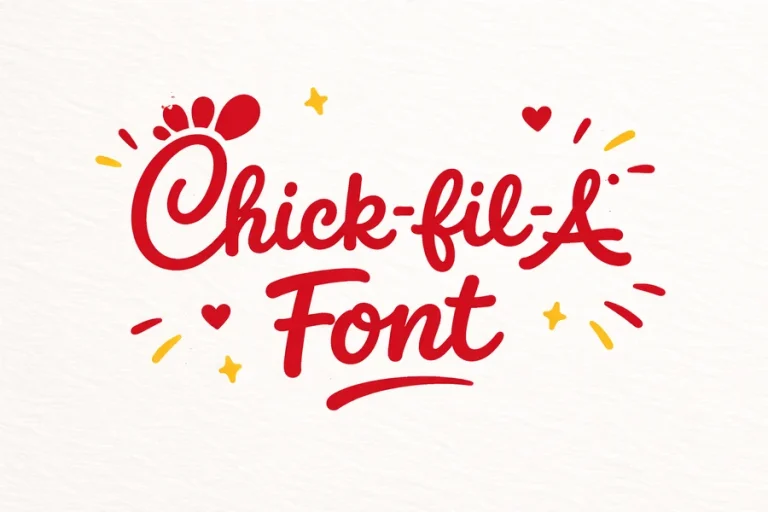
Chick Fil A Font – Style, History, and Brand Impact
Chick Fil A Font
The Chick Fil A font is one of the most recognizable logo styles in the fast-food industry. Its scribbled appearance catches the eyes of everyone at a glance, reminding them of the well-known chicken sandwich brand, and this can be considered an advantage of the company in the saturated market. Typography is a strong branding tool, and a unique script design employed by Chick-fil-A appears friendly, easy to approach, and to remember.
The peculiar font of the logo of the brand does not escape the attention of many individuals, particularly the innovative application of the letter C that looks like a head of a chicken. This is a smart design aspect which supports the concern of the restaurant about chicken and makes the logo easy to recall and attractive.
In this article, we’ll take a closer look at the style behind the Chick Fil A font, how it developed over time, why it works so well for branding, and what similar fonts designers can use if they want a comparable handwritten feel.
The Origin of the Chick Fil A Font
Chick-fil-A brand is an American company, which was established in 1967 by S. Truett Cathy. Since the inception of the firm, the firm sought to develop a warm and receptive image. The brand did not go to an ordinary corporate typeface but rather applied handwritten logo, which portrayed character and coziness.
Unlike many logos that rely on commercially available fonts, the Chick Fil A font was custom designed. Original designs were based on the handwriting of Truett Cathy so the logo had a personal aspect. This strategy contributed to making the brand closer and more real among the consumers.
The logo has been perfected and modernized over time but the main handwritten style has stayed the same. This has enabled the brand to retain a solid recognition over the decades yet be in line with the current design trends.
A distinctive handwritten style of the font also indicates that the company focuses on hospitality and friendliness as the major elements of the Chick-fil-A brand.
Key Characteristics of the Chick Fil A Font
The design of the Chick Fil A font includes several distinct features that make it stand out from typical restaurant logos.
To begin with, the font belongs to the style of a handwritten script. This makes the logo look relaxed and friendly and the customers can associate the brand with feeling warm and treated like family.
Second, the lettering is rounded and smooth. There are no sharp edges or hard lines, but the shapes of the characters are moved into each other. This flowing style generates the feeling of movement and dynamism.
The other significant feature is the creative chicken in the letter C. The logo also intelligently works around the first letter to look like a chicken head with a comb, which supports the theme of chicken products in the restaurant.
The font is also bold in nature and therefore you are able to see it clearly even when it is far away. This is particularly significant to signage, packaging and even advertising materials.
Combined, these aspects form a unique visual identity that the customers can identify at first sight.
Why the Font Works So Well for Branding
Typography is very important in influencing the perception of a brand among people. The Chick Fil A font works effectively because it communicates several important brand qualities at once.
Memorability is one of its success factors. The logo is memorable due to the handwritten style and the unusual shapes of the letters. The customers tend to think of the brand immediately when they are exposed to the similar script letter writing.
Emotional connection is another variable. Script fonts can be more intimate as compared to normal fonts. As Chick-fil-A logo looks like handwriting, it creates a sense that the brand appreciates genuineness and human touch.
The font used also serves to support the friendly and welcoming image of the company. Customer service is a favorable feature of the work of Chick-fil-A restaurants, and the visual assisting of the image are soft and flowing letters.
Lastly, the logo design is applicable. It is effective in a wide range of platforms, among them being store signs, online advertisements, packaging, mobile applications, and social media illustrations.
Fonts Similar to the Chick Fil A Style
Since the Chick Fil A font is custom made, it isn’t available for download as a standard typeface. Nonetheless, designers tend to seek similar script fonts that have a similar appearance and feel.
Chicken Hut, Lobster, and Sofia Script are some of the fonts that resemble each other in terms of style. These typefaces have flowing handwritten figures and heavy lines that remind the good nature of the Chick-fil-A logo.
Pacifico is another alternative popular script font and is applied in most branding and design projects. It is smooth and rounded in style and suitable in logos and casual type.
Can I download the Chick Fil A font?
No, the original logo typeface is proprietary and not available for public download because it was specifically designed for the brand.
Are there fonts similar to the Chick Fil A style?
Yes, fonts such as Chicken Hut, Pacifico, Lobster, and Sofia Script share a similar handwritten appearance and can be used for design inspiration.
Why is the Chick-fil-A logo font handwritten?
The handwritten style was inspired by the founder’s handwriting and was chosen to create a friendly, personal, and approachable brand image.